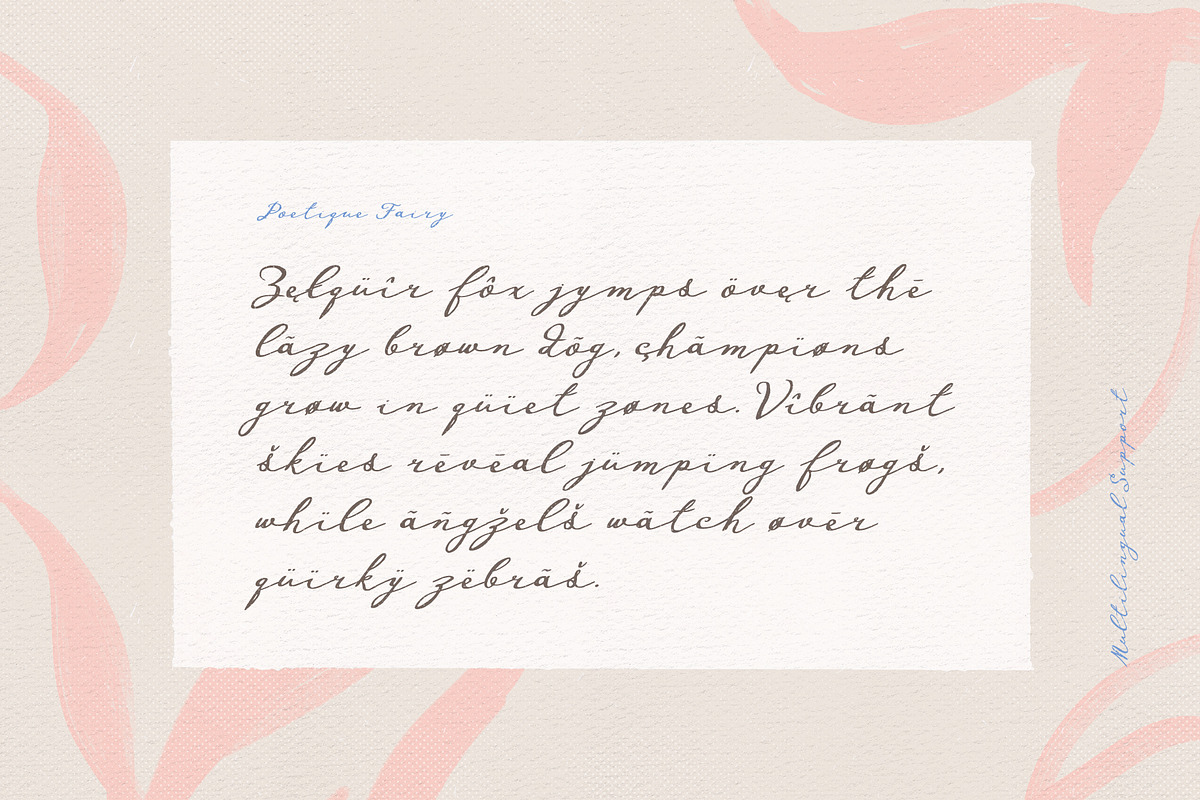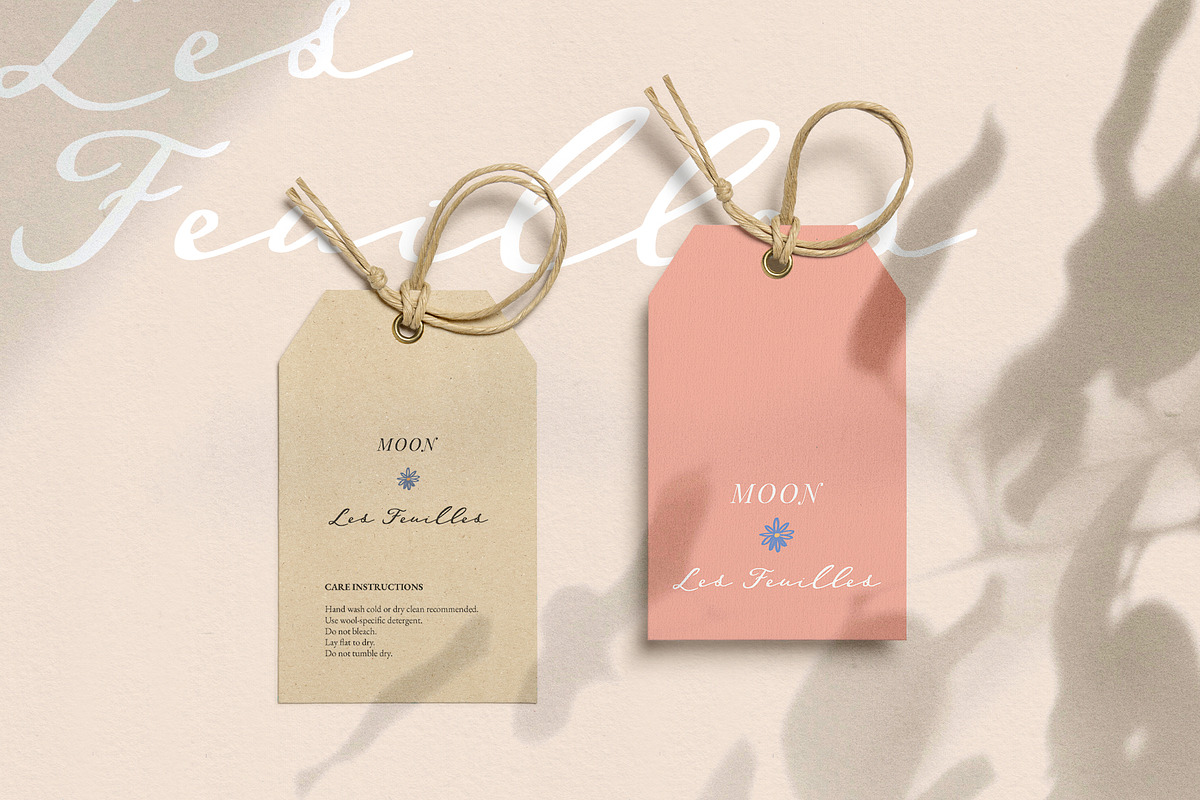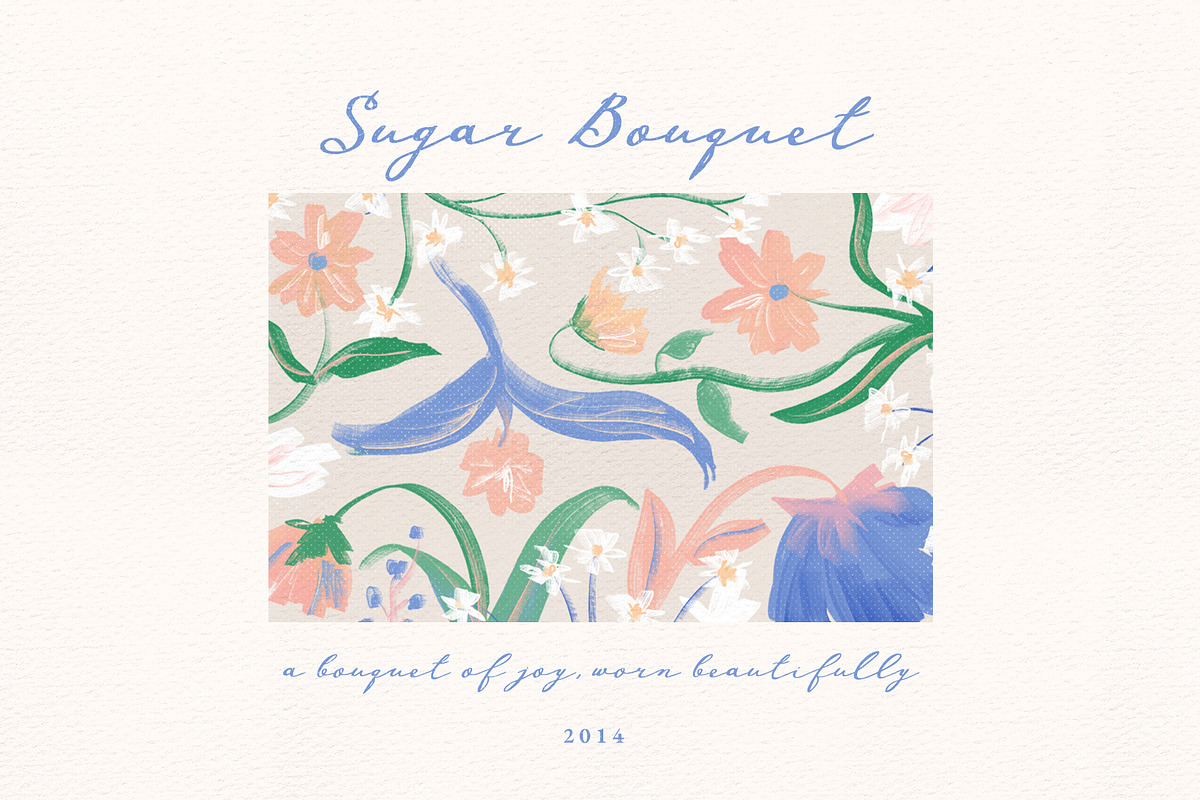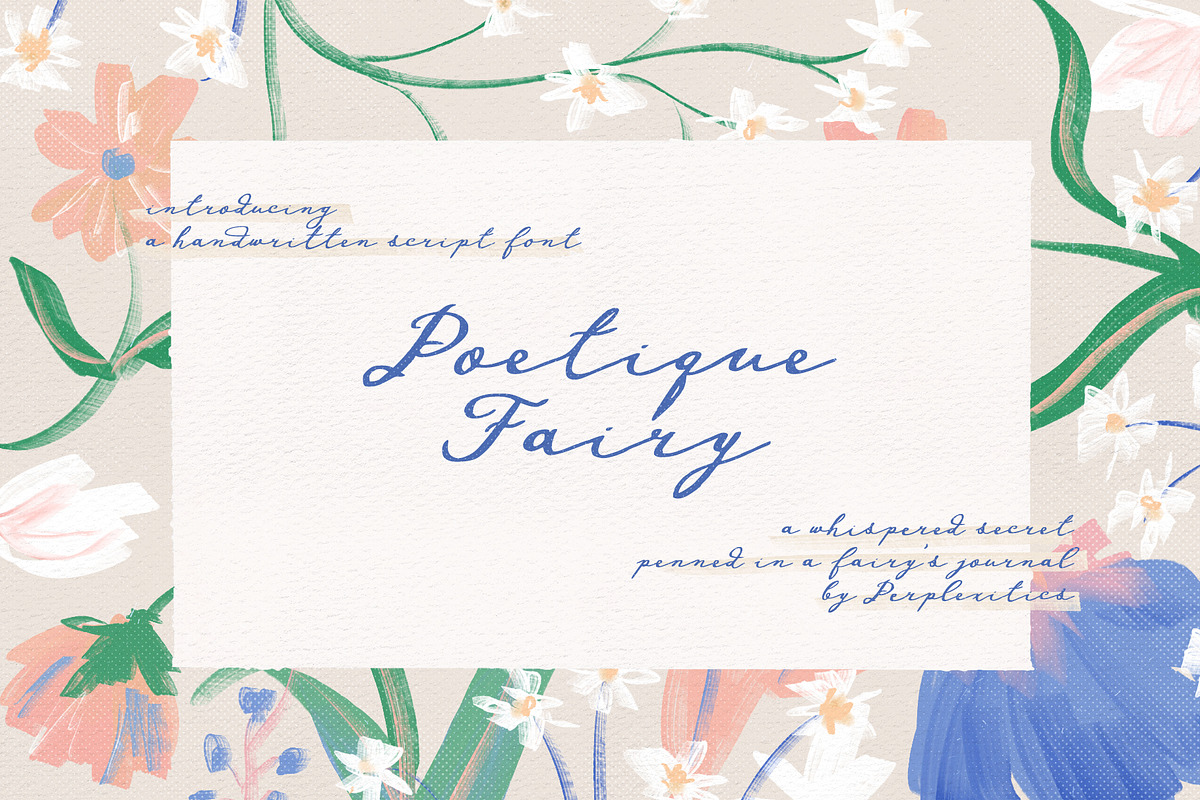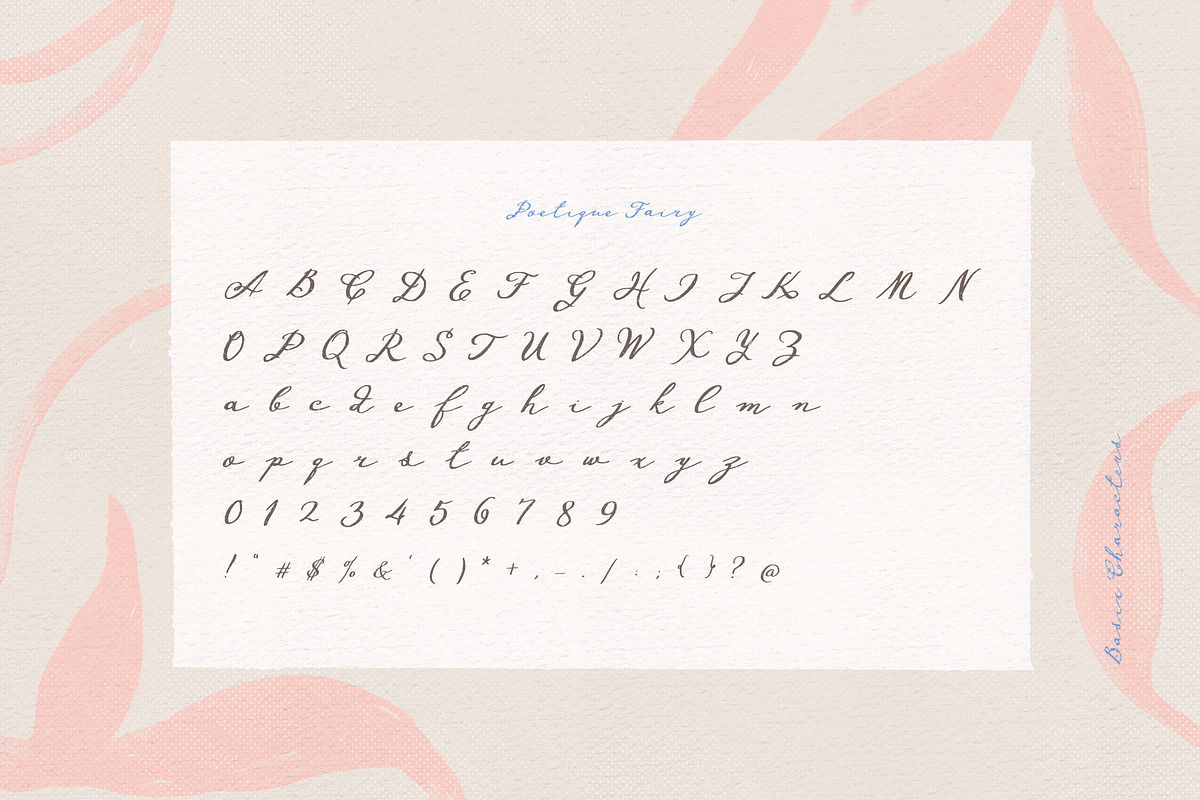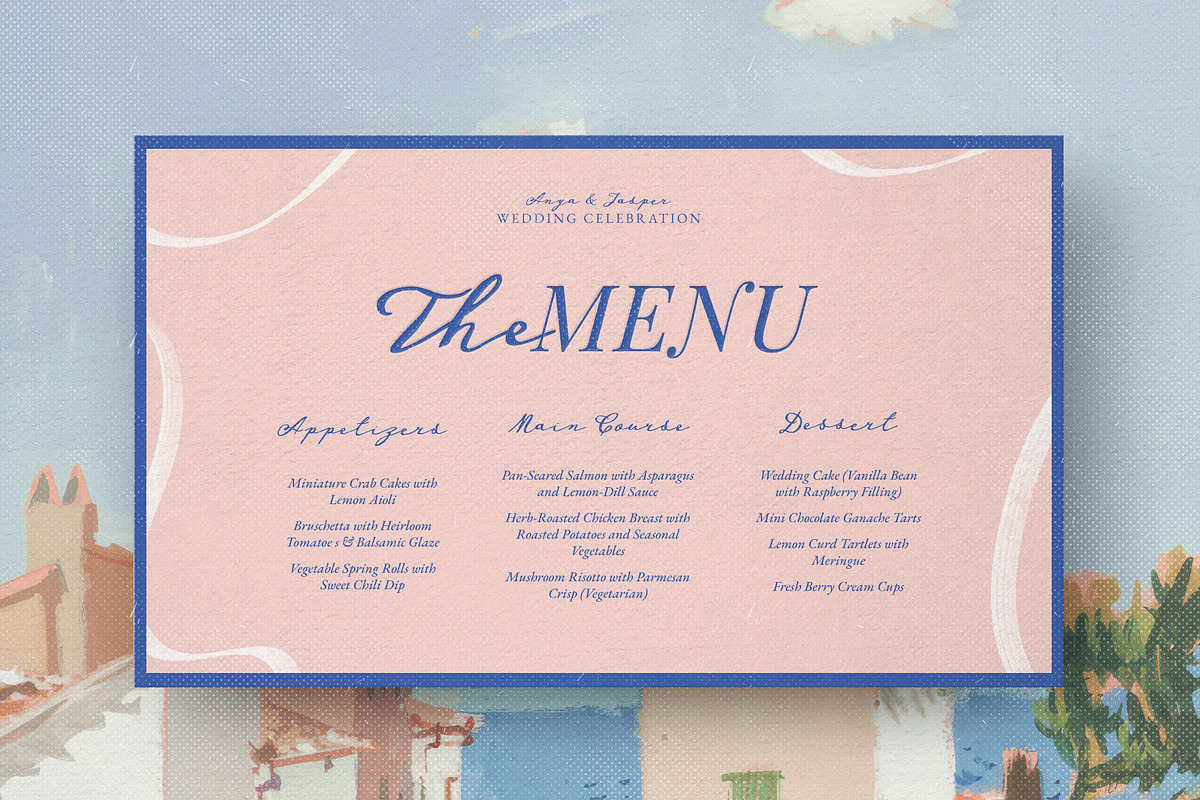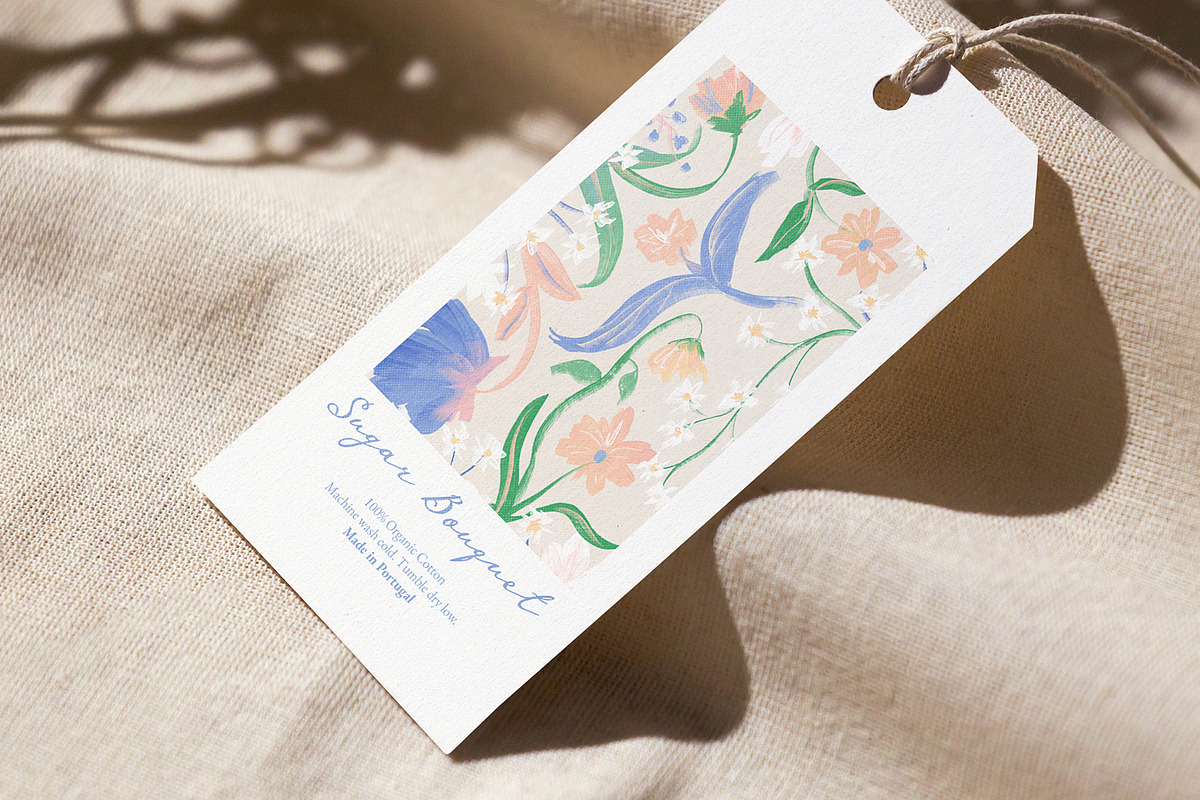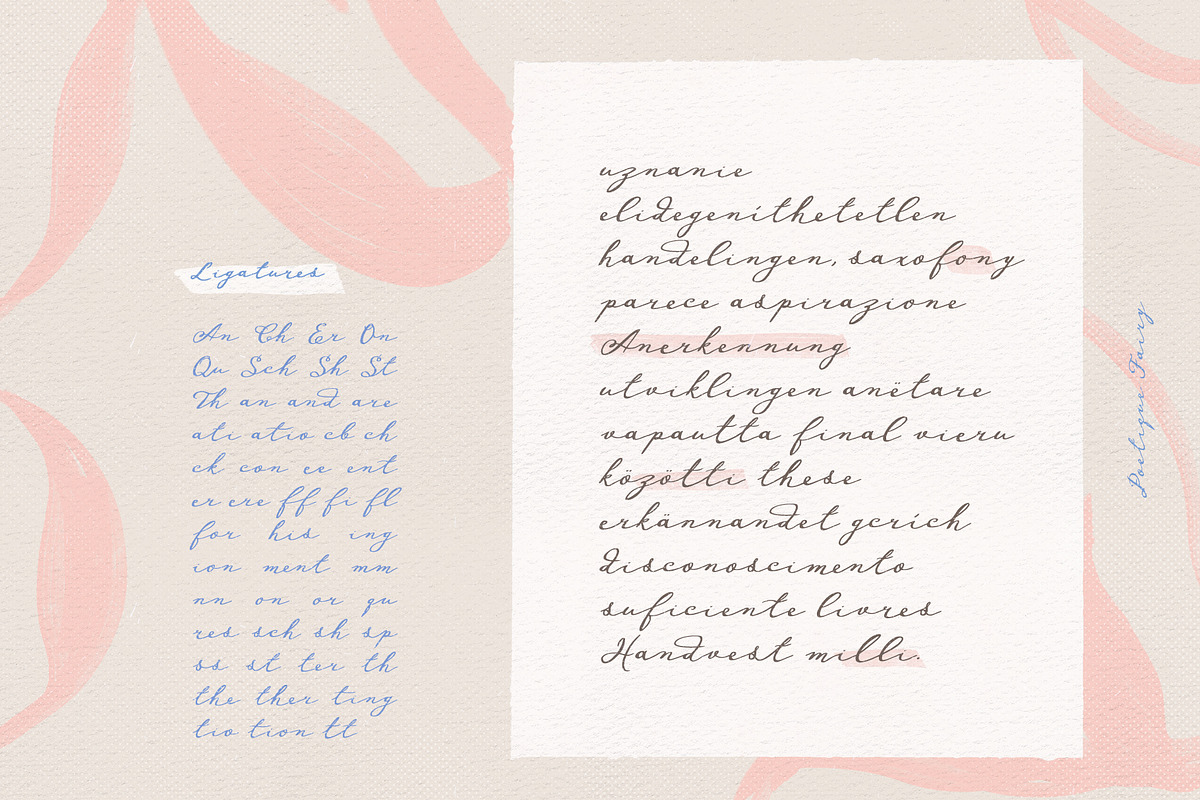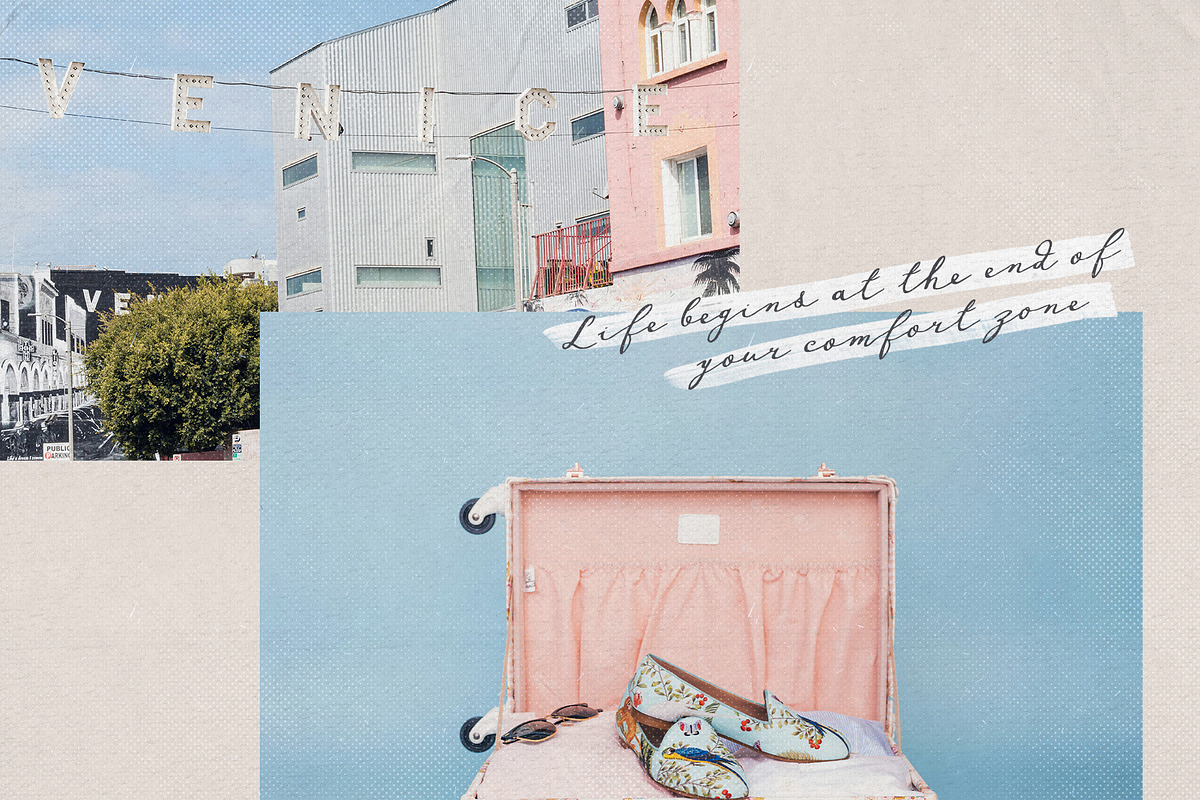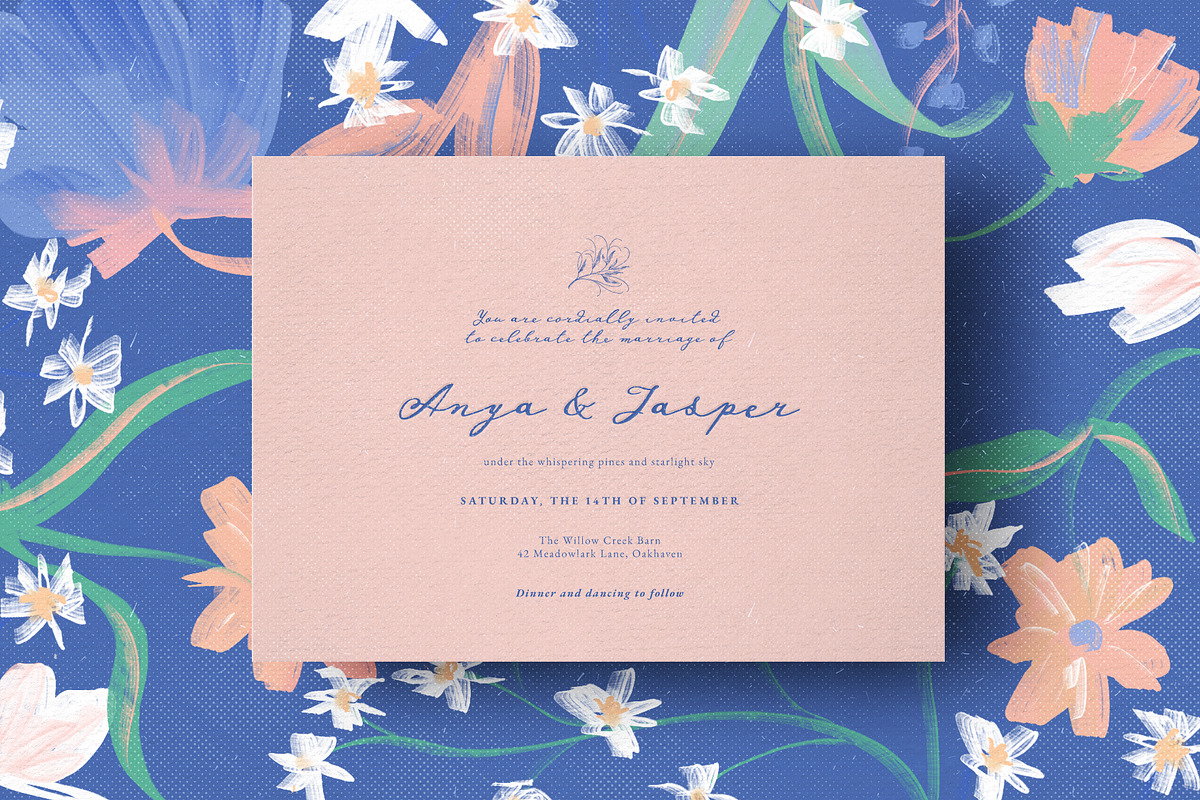
Poetique Fairy Handwritten Font
Poetique Fairy handwritten script font evokes a sense of whimsical charm and delicate elegance, like a whispered secret penned in a fairy's journal. Its flowing, elegant strokes add a touch of magic to storybook designs, personalized gifts, and digital art, conveying heartfelt messages with a sense of wonder.
Poetique Fairy Font is packed with everything you need, including uppercase and lowercase letters, numbers, and punctuation. Multilingual support.